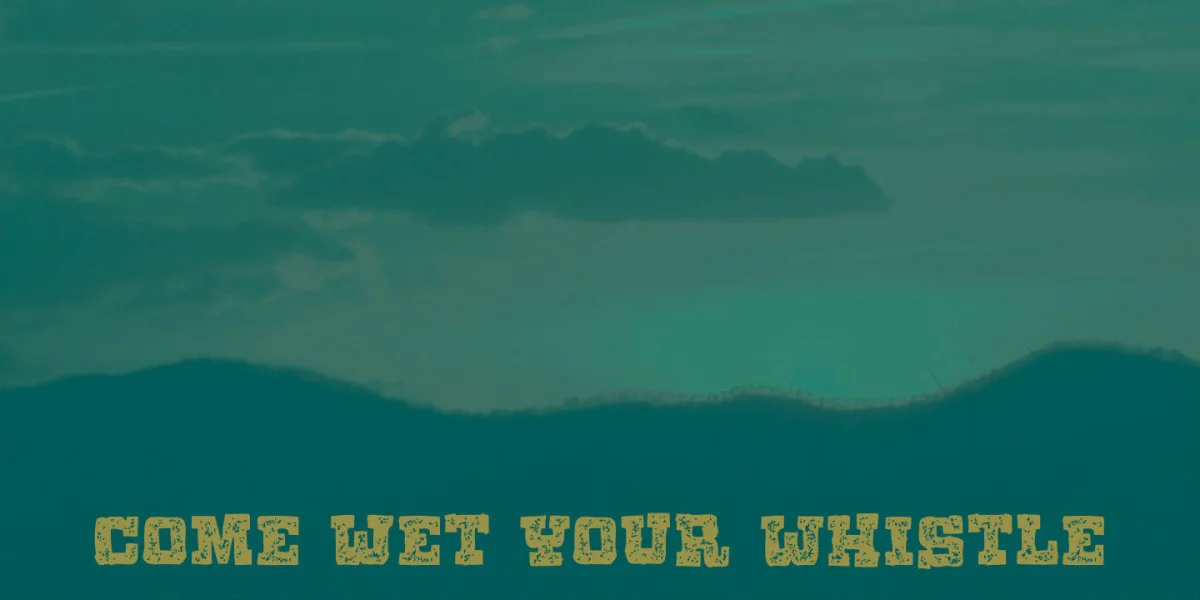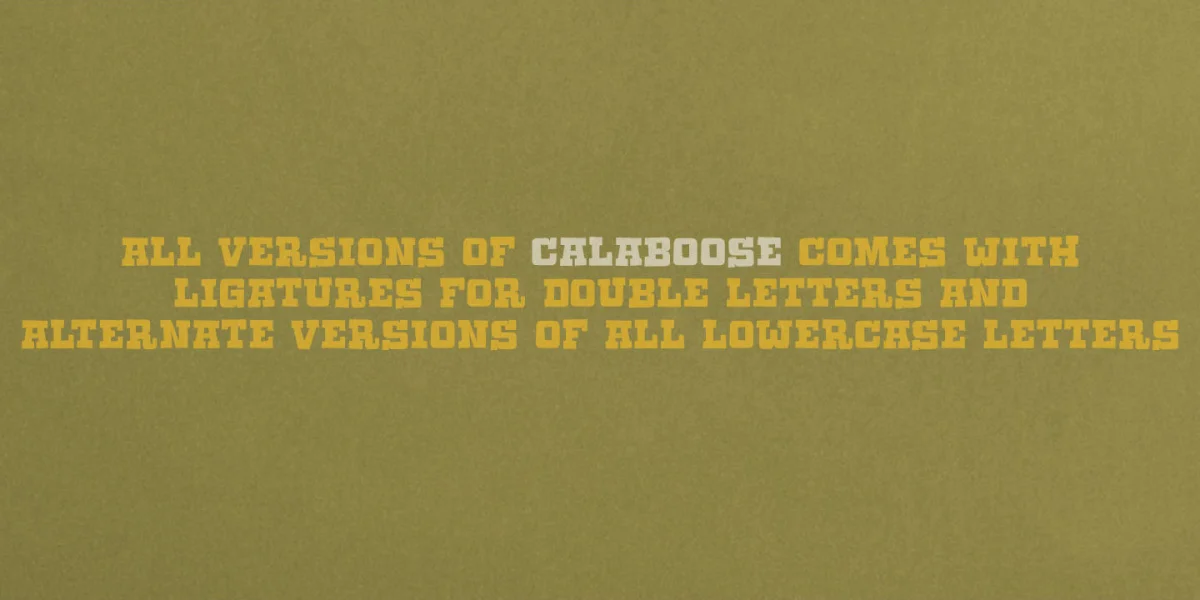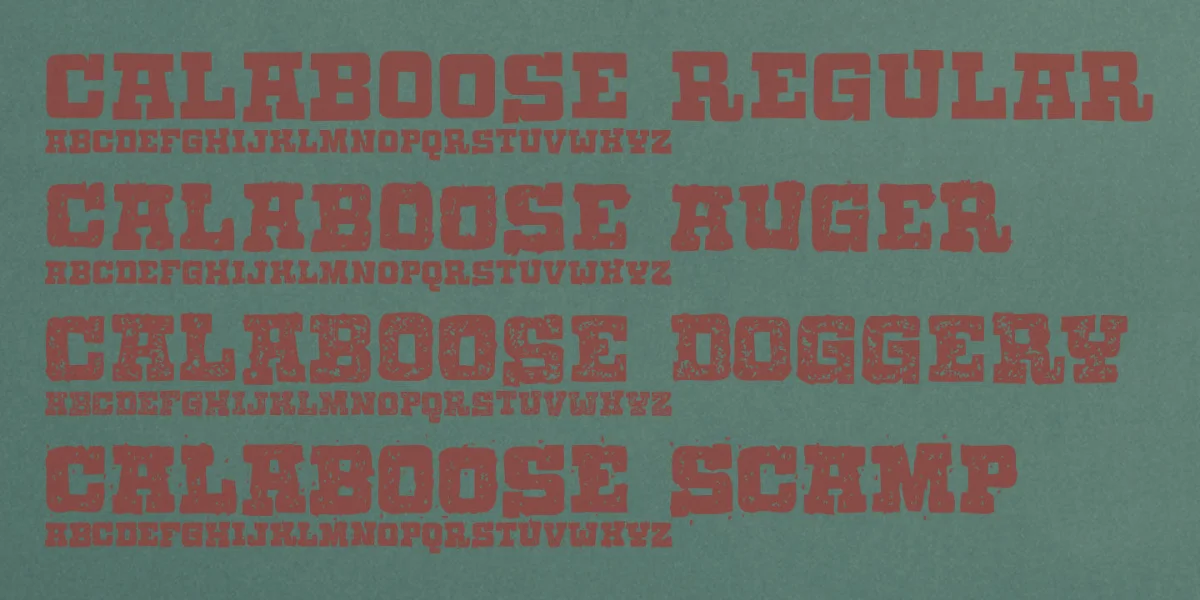
Howdy partner! This is my cowboy font, and it’s called “Calaboose”! Use it for headlines and short messages that needs that western look. Calaboose is cowboyslang for prison - but don't worry, you won't get arrested for being a cityslicker using the four versions of this grafitti(!) inspired western font! All versions of Calaboose come with ligatures for double letters and alternate characters (only available in the shareware version!) Don't be a half-wit...pony up and git this font - and it doesn't even cost you a handful of dollars!